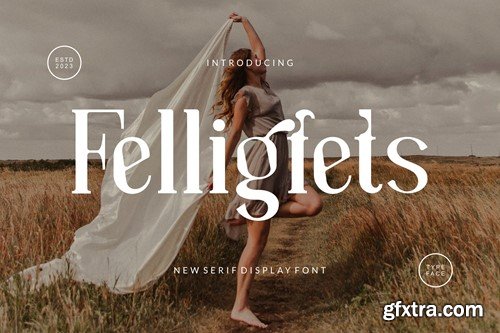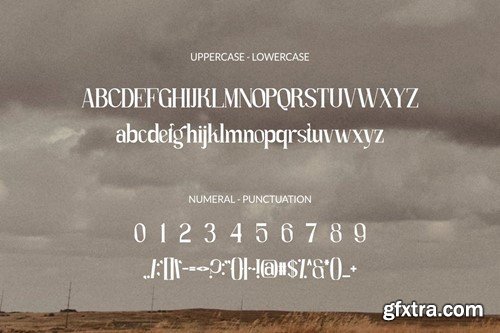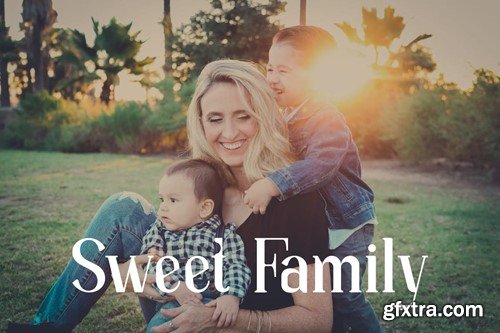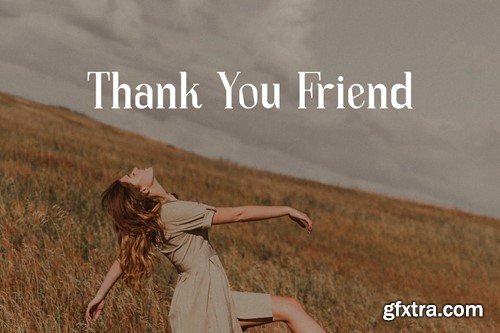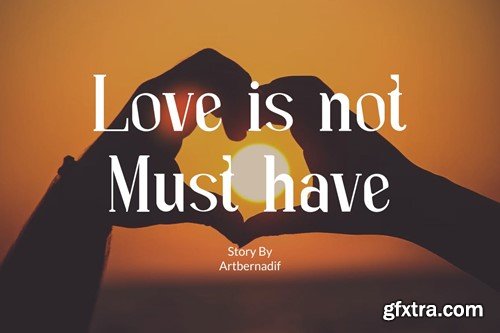
Felligfets Font 6JPFM28
Felligfets Font
Introducing our new product Felligfets Font - Modern Font Felligfets Font- Modern Font is a bold and authentic display font. The font is suitable for any branding project like logo, t-shirt printing, esport, and many more. outstanding in a wide range of contexts. availlable